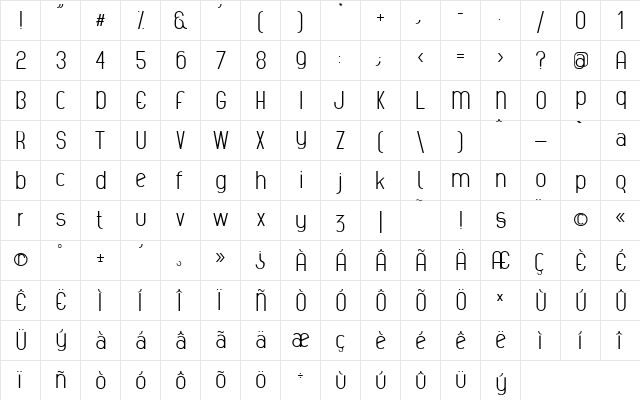
Ficus Ficus
| Foundry | Ewen Prigent |
| Designer | Ewen Prigent |
Design Context for Ficus Typeface
Ficus is a composed and adaptable typeface that performs quietly and consistently across a wide range of design contexts.